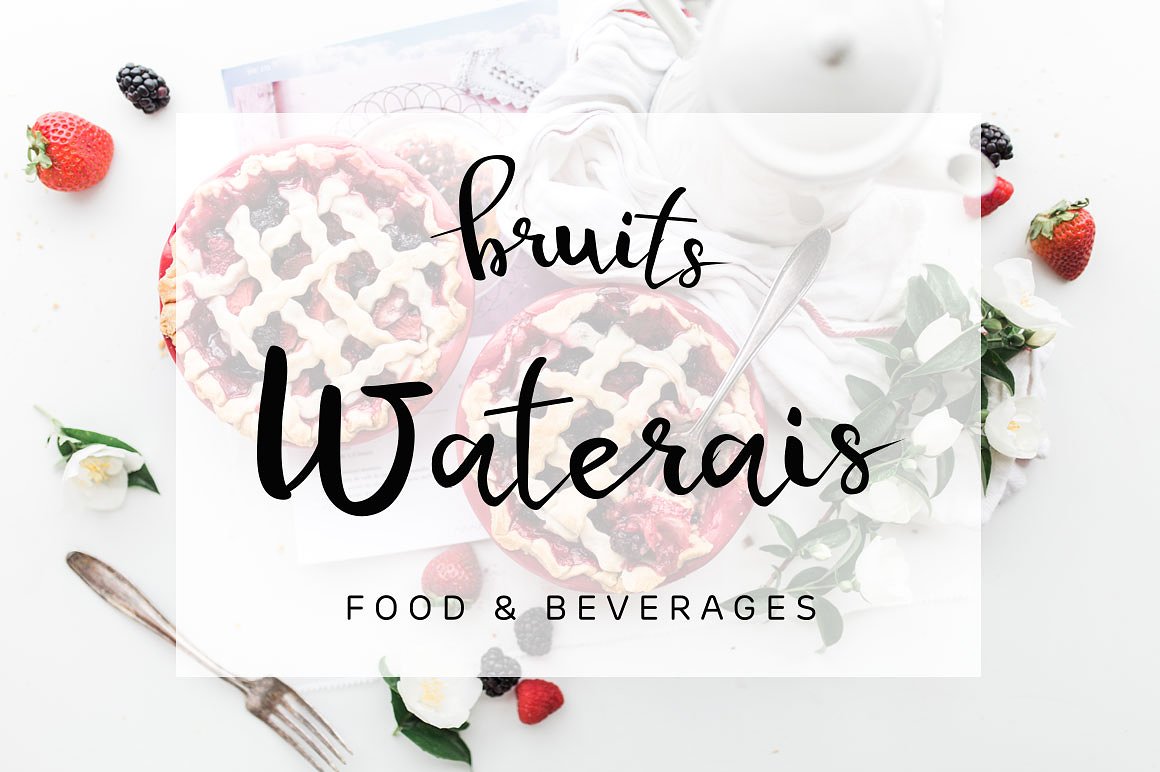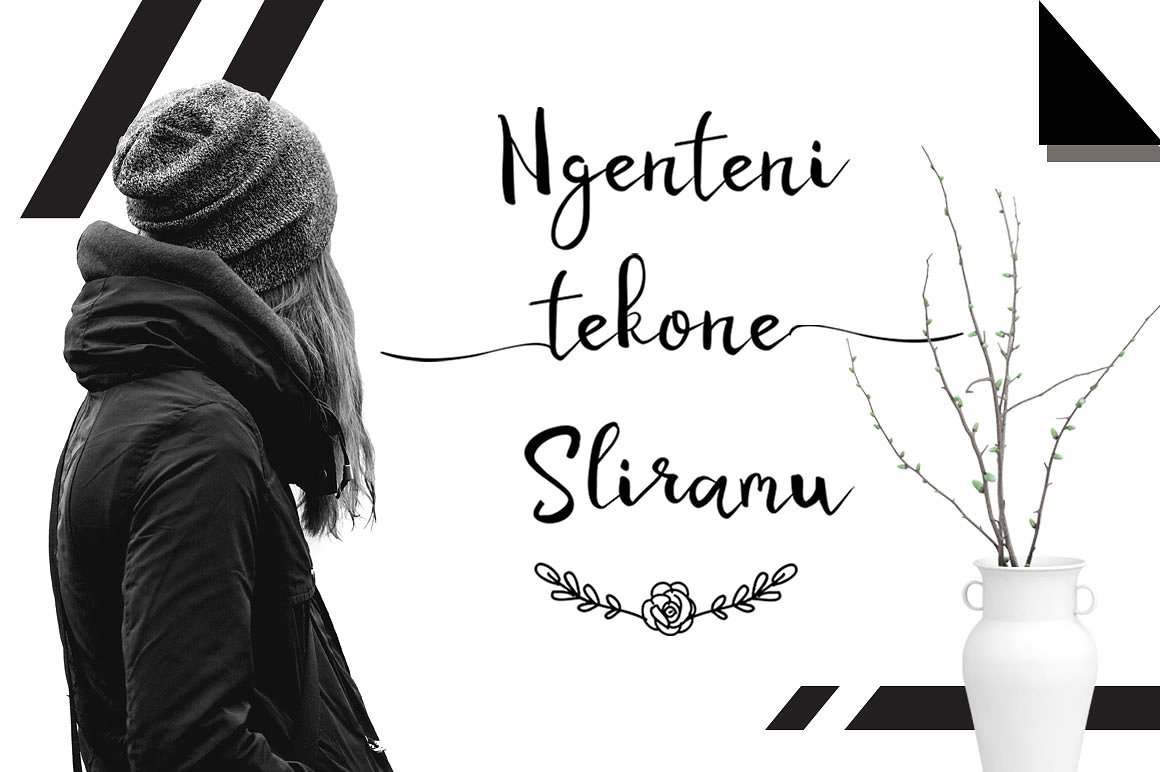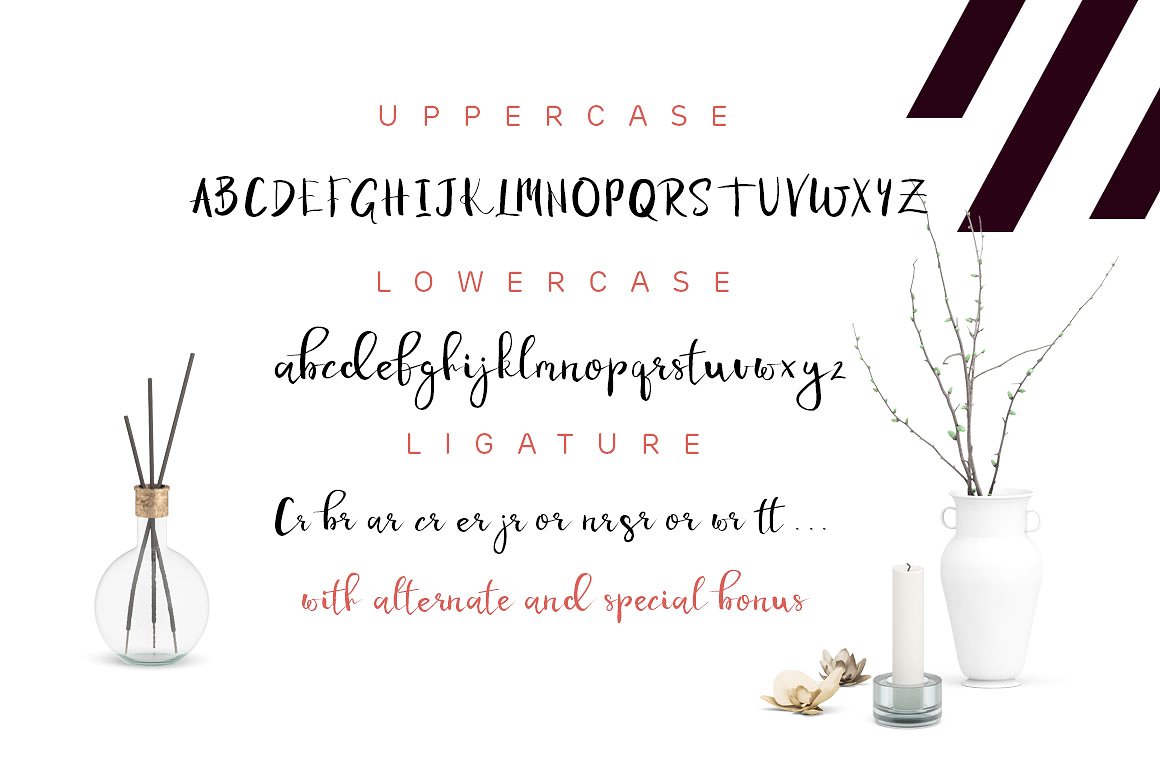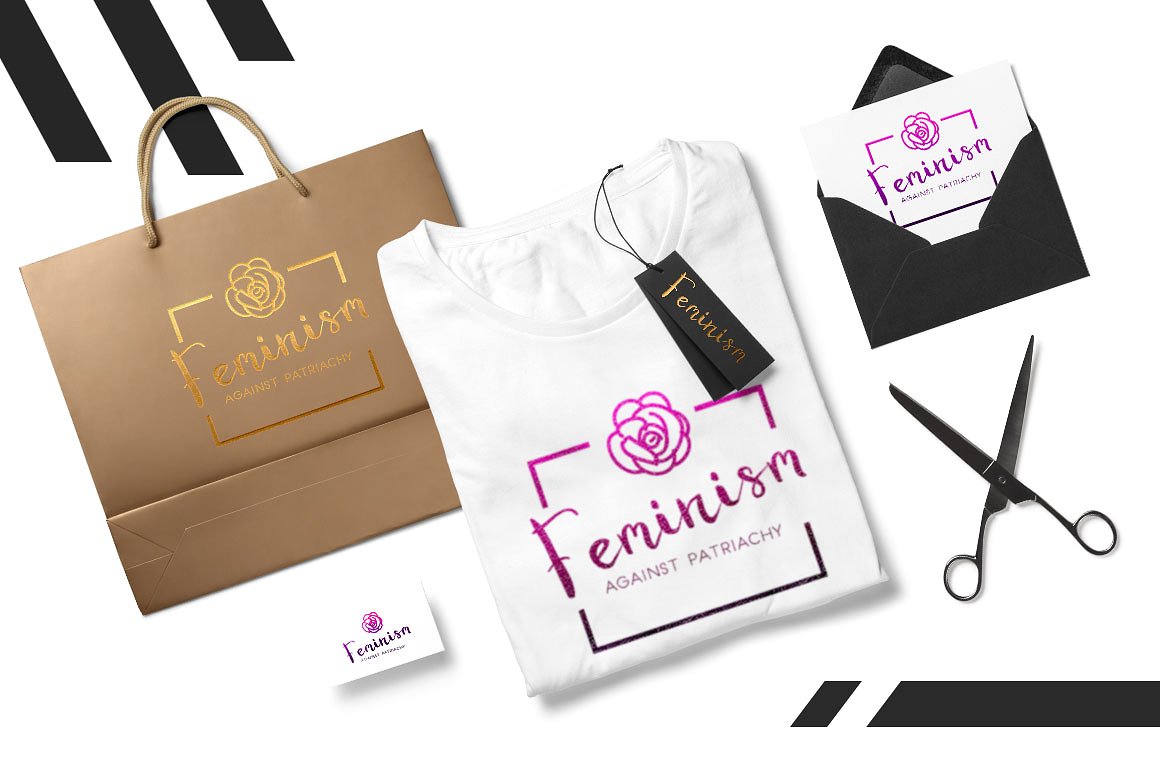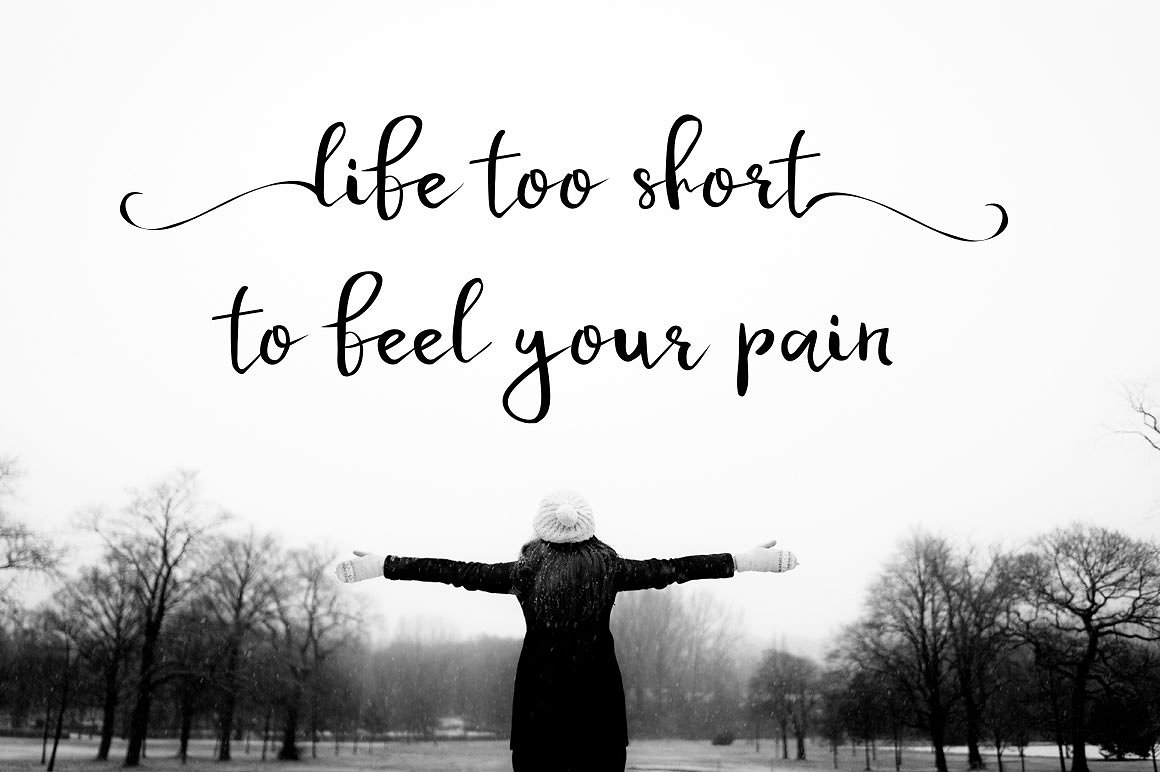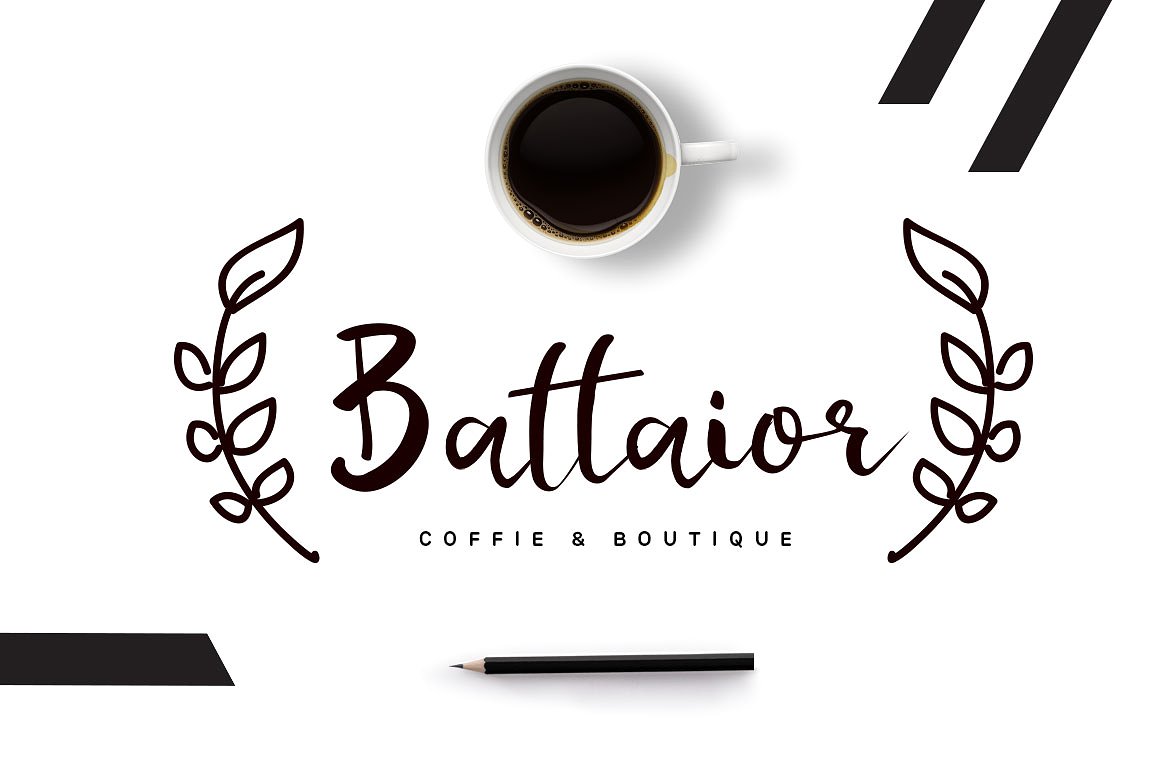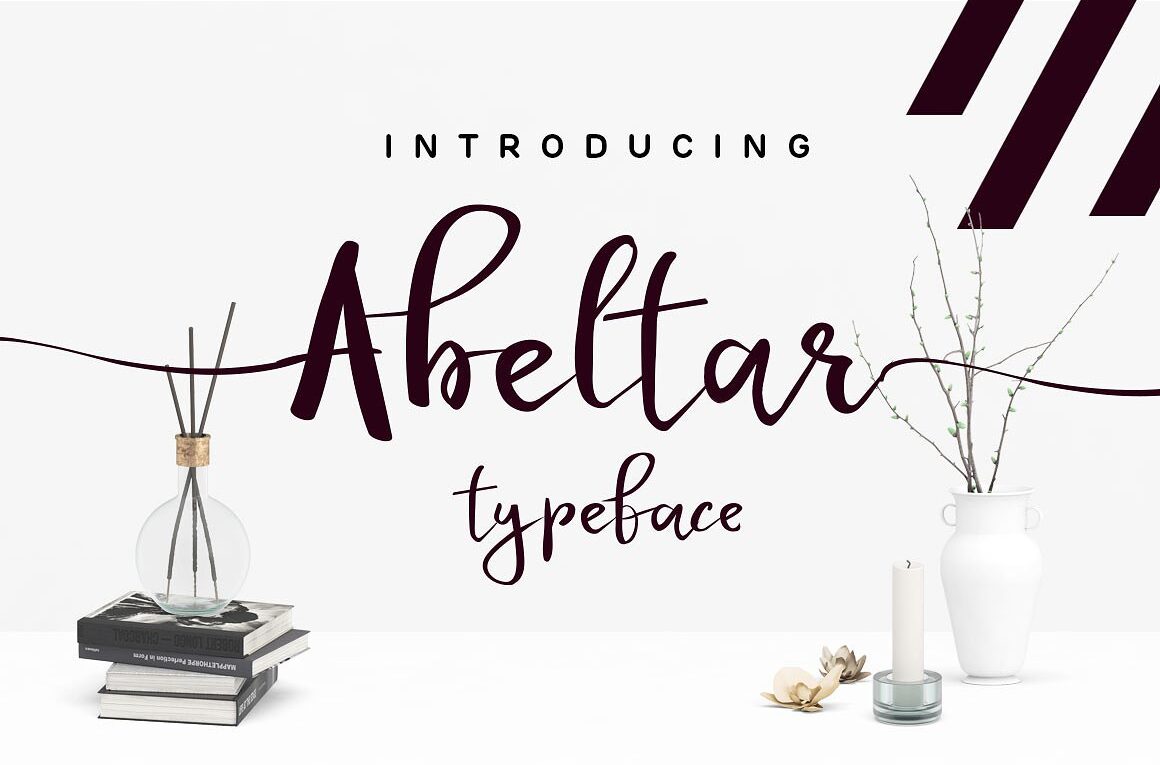
Introducing Albetar Font: The Epitome of Elegance and Femininity
In the realm of typography, fonts play a pivotal role in conveying the tone and aesthetic of a creative project. For designers and crafters seeking to infuse their work with a touch of sophistication and charm, Albetar Font emerges as an exceptional choice. This elegant and feminine script font is meticulously designed to exude confidence, making it an ideal fit for fashionable or beauty-oriented projects.
The Essence of Albetar Font
Albetar Font is not just a typeface; it’s an experience. Its fresh and charming appeal can instantly elevate the visual appeal of any creative endeavor. Whether you’re working on a luxury brand’s marketing materials, a beauty blog, or crafting bespoke stationery, Albetar Font brings a level of refinement that’s hard to match. Its elegant strokes and fluid connections between letters create a harmonious flow, making it a delight to read and behold.
One of the standout features of Albetar Font is its unique blend of classic elegance and modern charm. The font boasts:
- Elegant Strokes: Each letterform is crafted with precision, featuring smooth, flowing strokes that convey a sense of luxury and sophistication.
- Feminine Touch: The font’s design elements are subtly feminine, making it particularly suited for projects that require a touch of grace and allure.
- Versatility: Albetar Font is incredibly versatile, capable of complementing a wide range of design themes and styles.
- Readability: Despite its elegant nature, the font maintains a high level of readability, ensuring that your message is conveyed clearly and effectively.
Use Cases for Albetar Font
The versatility of Albetar Font makes it suitable for a myriad of applications, including:
- Fashion Branding: From logos and packaging to marketing materials and website headers, Albetar Font can help fashion brands establish a sophisticated and stylish identity.
- Beauty and Cosmetics: For beauty bloggers, makeup artists, and cosmetic brands, this font offers a way to communicate elegance, allure, and professionalism.
- Stationery and Invitations: Add a touch of luxury to your wedding invitations, greeting cards, and personal stationery with Albetar Font’s elegant charm.
- Digital Content: Enhance the visual appeal of your blog posts, social media graphics, and digital newsletters with a font that stands out.
Tips for Using Albetar Font
To maximize the impact of Albetar Font in your projects, consider the following tips:
- Pair it Wisely: Combine Albetar Font with complementary fonts to create visual interest. A sans-serif font can provide a clean contrast to Albetar’s elegance.
- Play with Sizes: Utilize varying font sizes to create a hierarchy of information, ensuring your design is both readable and visually appealing.
- Emphasize with Color: While the font itself is a statement, carefully chosen colors can further enhance its beauty and adapt it to your brand’s palette.
Albetar Font stands as a testament to the power of typography in design. Its elegant and feminine charm, coupled with its versatility and readability, makes it an invaluable asset for designers and crafters. Whether you’re aiming to create a lasting impression with a fashion brand, convey luxury in beauty content, or simply add a touch of sophistication to your craft projects, Albetar Font is poised to exceed your expectations. Embrace the elegance, and let Albetar Font be the voice of your creative vision.